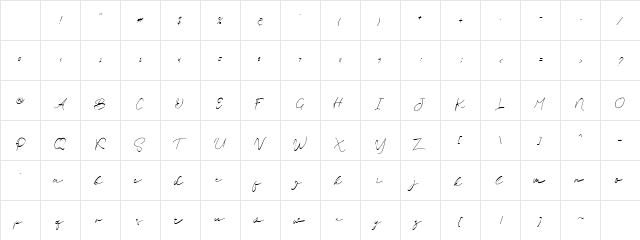
Brian Strait is a composed and adaptable typeface that performs quietly and consistently across a wide range of design contexts.
Pro Tip: Use Brian Strait in both headline and body roles to test its range before committing to a single application.